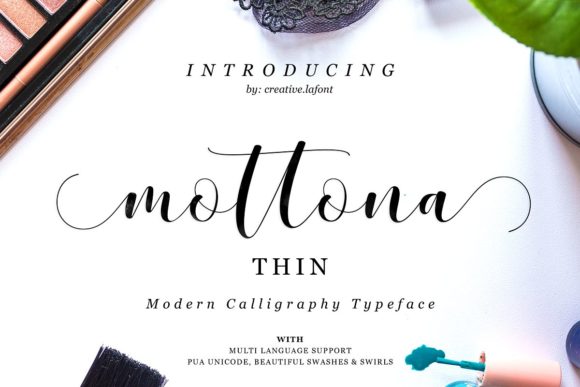
Unleash the Allure of Mottona Thin Script: A Font Crafted to Enchant
Prepare to be captivated by Mottona Thin Script, a font that embodies the essence of elegance and charm. Created by the artistic hands of Creative.lafont, this script font is a masterpiece that will transform your designs into captivating works of art. Immerse yourself in the beauty of each meticulously crafted letter, designed to evoke emotions and leave a lasting impression on your audience.
With Mottona Thin Script, you can effortlessly add a touch of sophistication to your projects, whether it's a personal blog, a professional presentation, or a stunning social media post. Its delicate strokes and graceful curves will elevate your designs to new heights, making them stand out from the mundane and mundane.
Transport yourself to a world of enchantment as you explore the endless possibilities of Mottona Thin Script. Its versatility knows no bounds, allowing you to create a wide range of designs that reflect your unique style and vision. From whimsical invitations to heartfelt love letters, from captivating logos to eye-catching posters, this font will effortlessly transform your words into works of art.
Indulge in the allure of Mottona Thin Script and let your creativity flourish. Its delicate strokes and enchanting curves will weave a spell on your audience, leaving them spellbound by the beauty of your designs. Experience the magic of this captivating font and unlock the boundless potential of your imagination.